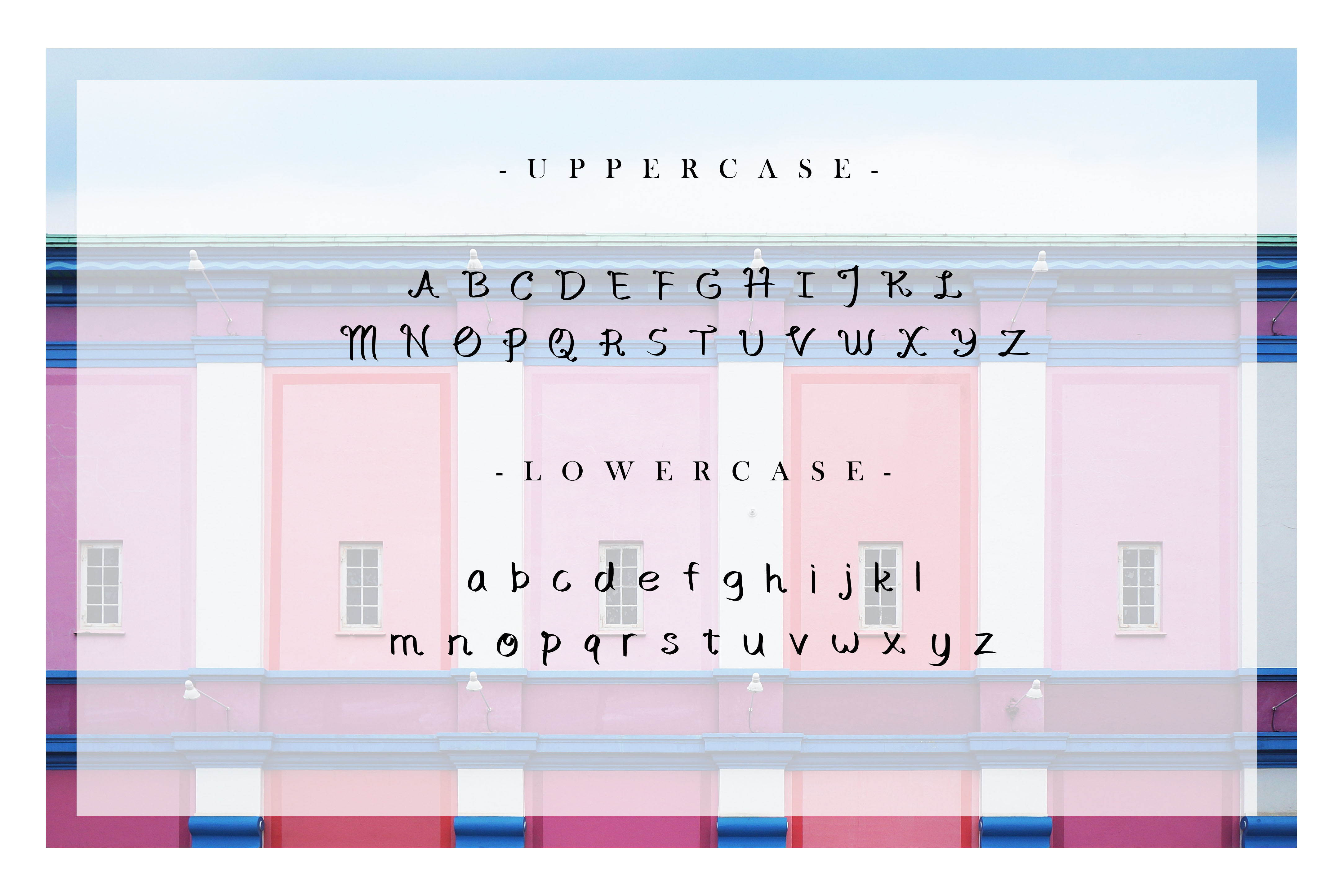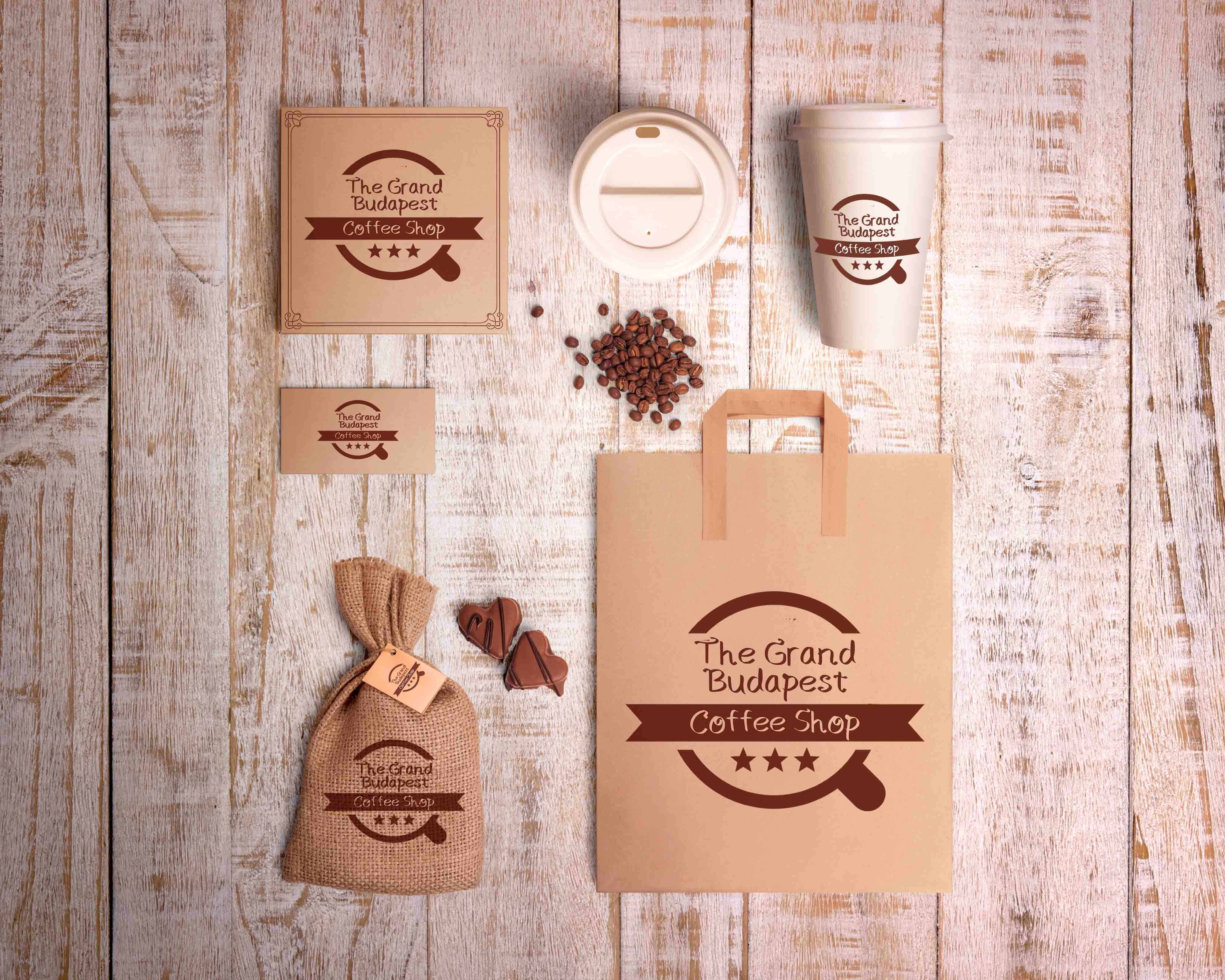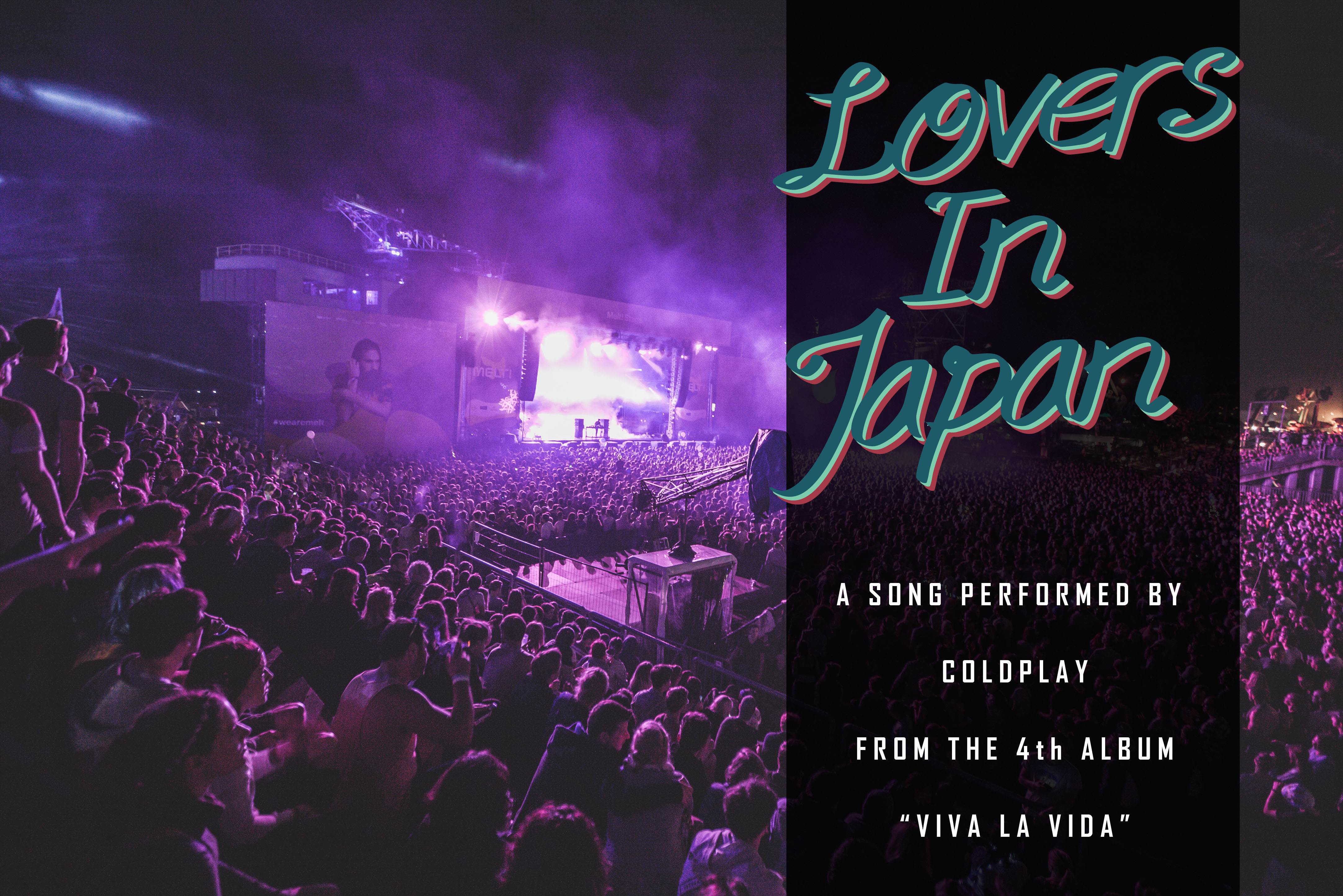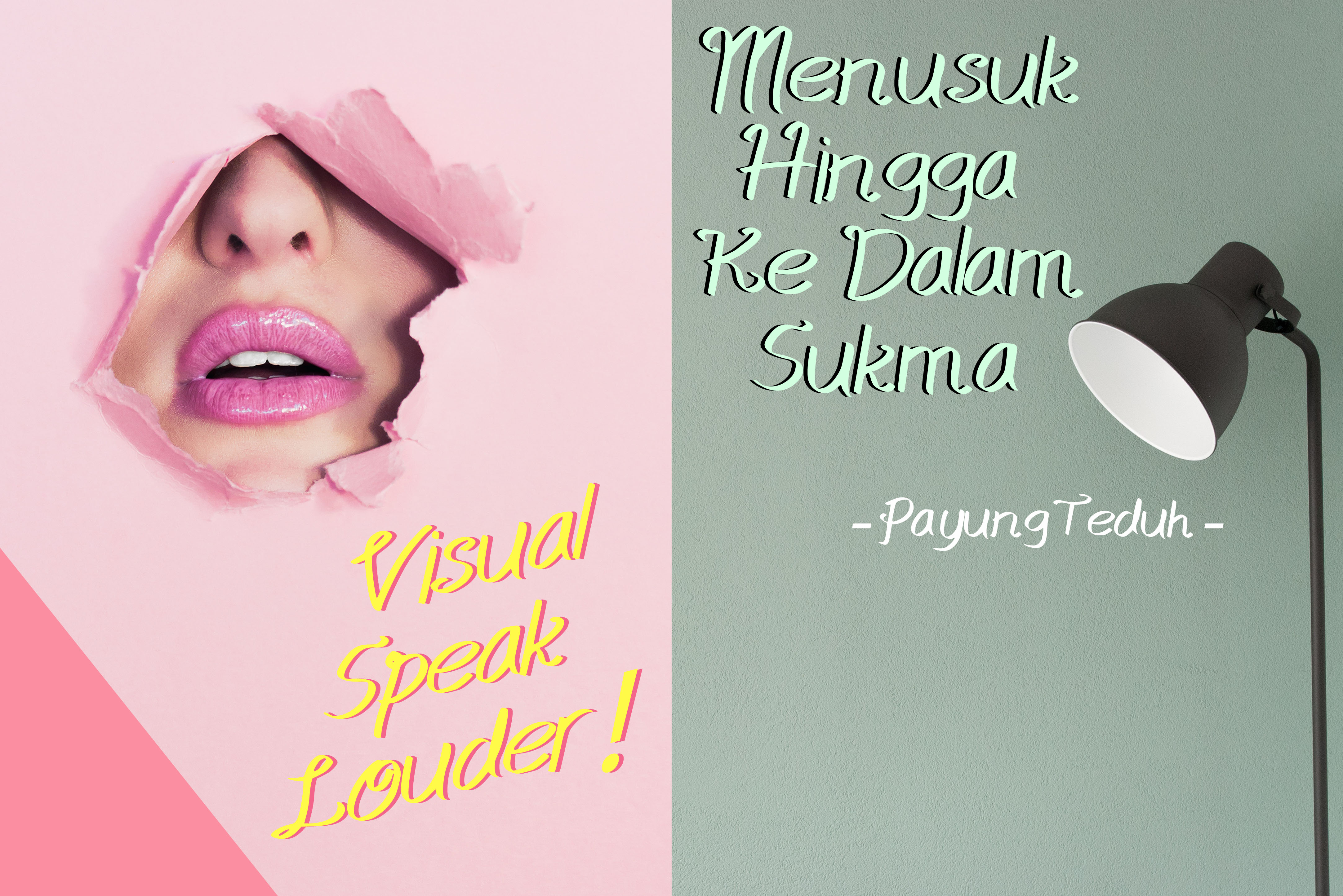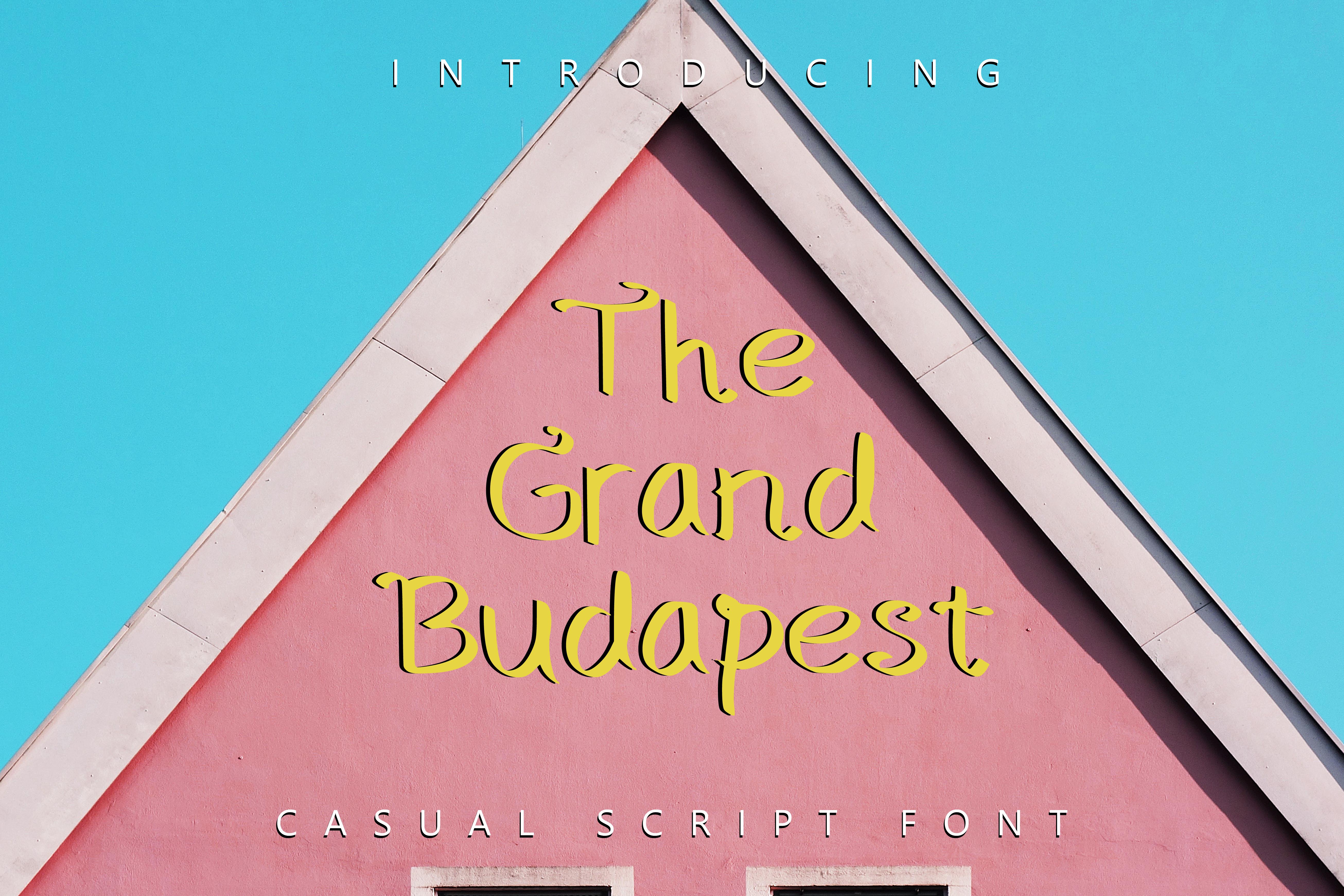
The Grand Budapest Font Regular Font
The Grand Budapest is casual script font that suites for anything you need such as website header, flyer, book cover, cd cover, posters,branding, and other stuff.
The Grand Budapest comes in casual classic styles, include Uppercase and Lowercase characters.